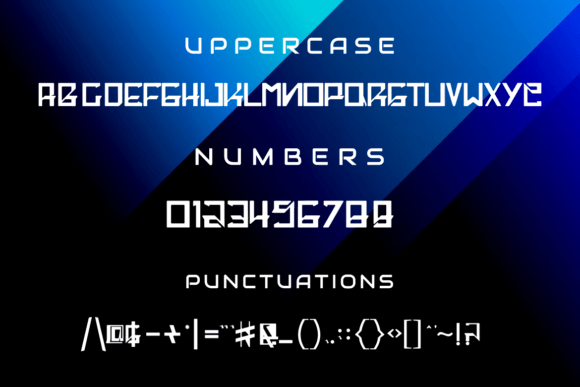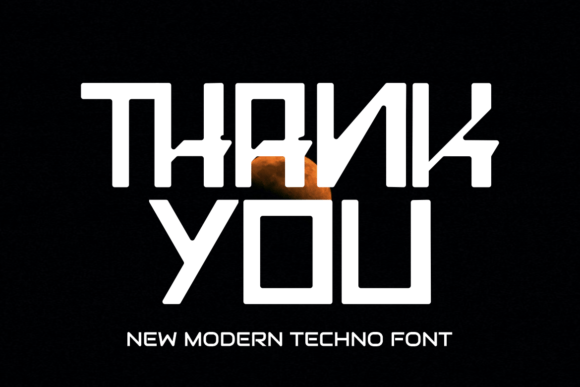
Introduction to Kontry Font
Kontry is a fun and cool display font.
Its modern and unique style makes it suitable for a wide range of design ideas .
Key Features of Kontry Font
Why Choose Kontry Font?